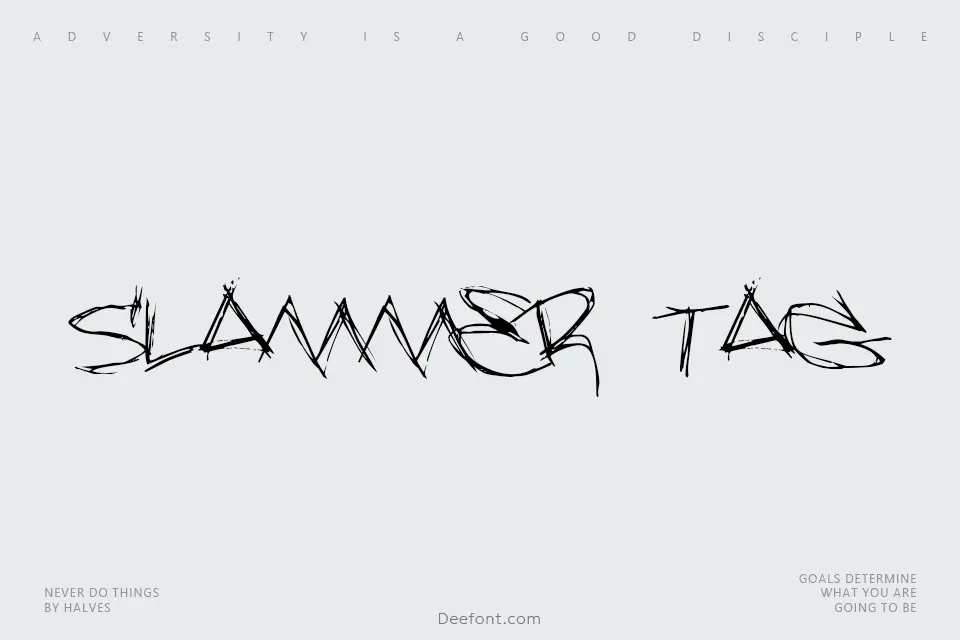
Slammer Tag Font
Slammer Tag is a bold, graffiti-inspired script font featuring jagged, irregular strokes that capture the raw energy of street art. With dynamic uppercase and lowercase letters, exaggerated angles, and a hand-drawn aesthetic, this font delivers an urban, edgy style perfect for rebellious designs. The characters maintain consistency while conveying movement and artistic chaos, making it ideal for street art projects, music album covers, posters, and edgy branding that demands visual impact and contemporary attitude.